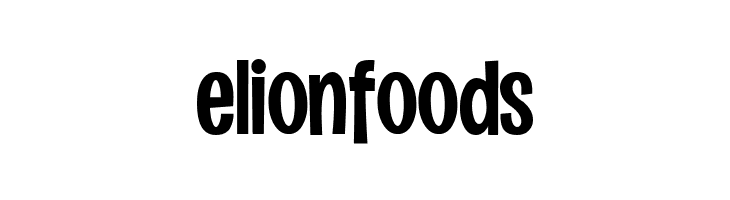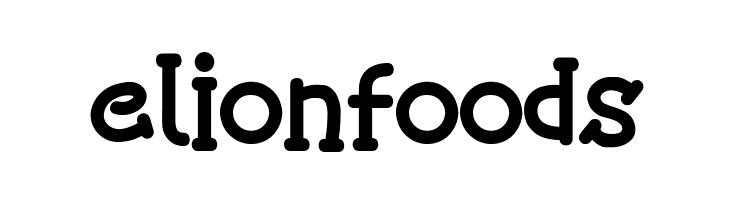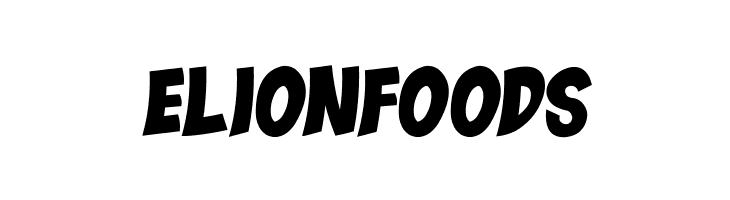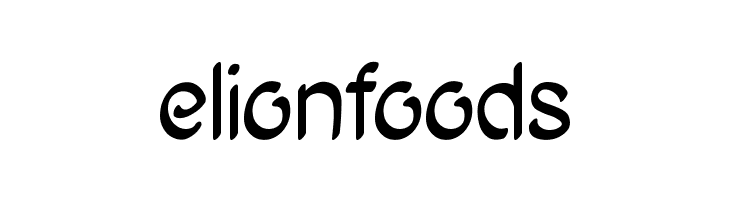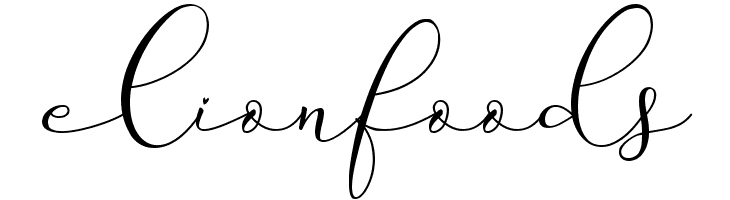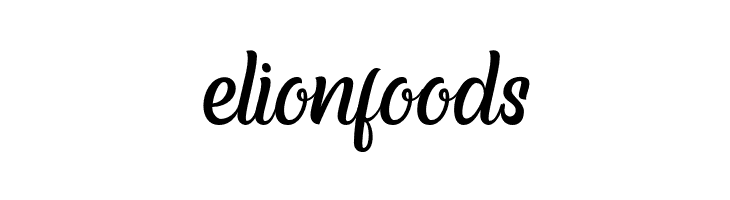
A bold, rounded font with a playful and energetic style.
A playful, bold, hand-drawn font with a whimsical and informal style.
A playful, bold font with rounded, thick strokes and a whimsical style.
A bold, high-contrast font with geometric shapes and a modern, edgy style.
A bold, medieval-inspired font with a strong, gothic presence.
A bold, dynamic italic font with sharp, angular edges and a strong presence.
A bold, dynamic font with thick strokes and a playful, energetic style.
A bold, playful font with rounded strokes and a modern, dynamic style.
A geometric, angular font with a futuristic and technical style.
A lively, script-style font with a playful and dynamic handwritten feel.
A lively and dynamic script font with fluid, connected strokes.
A bold, modern sans-serif font with clean, geometric lines.
A bold, playful script font with a lively handwritten style.
A playful, balloon-like font with a bold and whimsical style.
A playful, balloon-like font with a three-dimensional, whimsical style.
A bold, playful font with rounded, bubble-like characters.
A playful, bubble-like font with hollow interiors and rounded edges.
A bold, playful font with rounded, bubble-like characters ideal for dynamic designs.
A modern, sleek font with smooth curves and a slightly condensed style.
A playful and flowing script font with elegant curves and smooth strokes.
An elegant and flowing script font with decorative letterforms.
A graceful script font with fluid, cursive strokes and interconnected letters.
A bold, edgy font with angular cuts and a gothic influence.
A whimsical and ornate script font with decorative swirls and playful accents.
A lively, cursive font with a handwritten style and dynamic strokes.
A playful, bold font with rounded, hand-drawn characters.
An elegant, flowing script font with graceful curves and loops.
A bold, playful script font with a handwritten style.
A bold, playful handwritten font with expressive strokes and a lively character.
Comic-style display font with speech bubbles and bold, playful letters.
A bold, playful, hand-drawn font with rounded, connected characters.